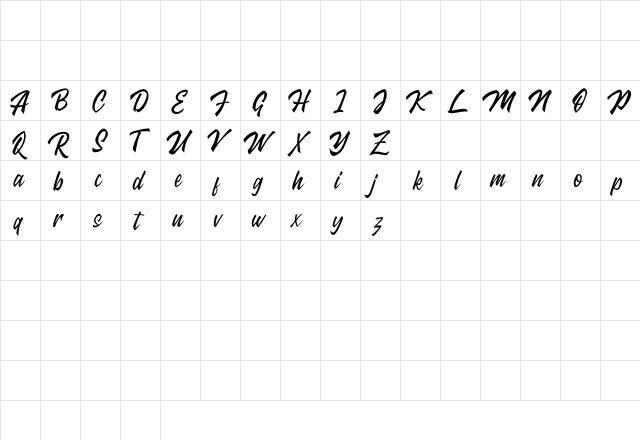
Kingstand Regular
| Designer | Jefri Dwi Alfatah |
Design Context for Kingstand Typeface
Kingstand is a composed and adaptable typeface that performs quietly and consistently across a wide range of design contexts.